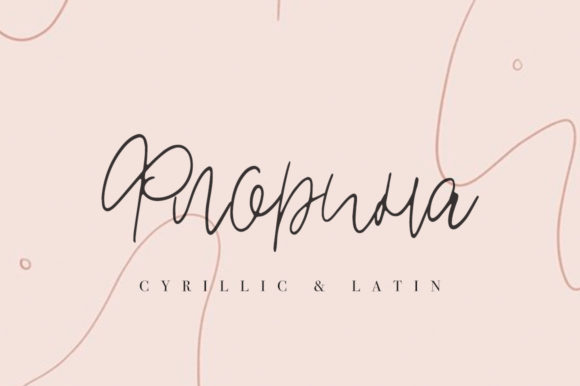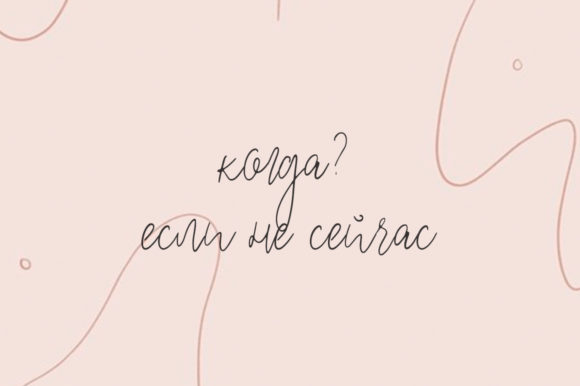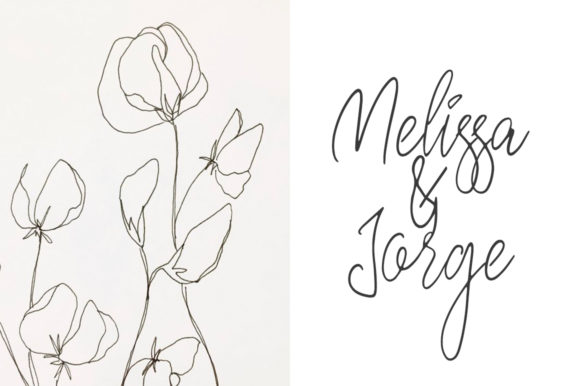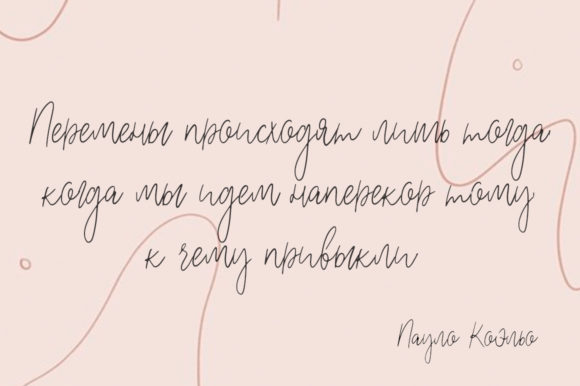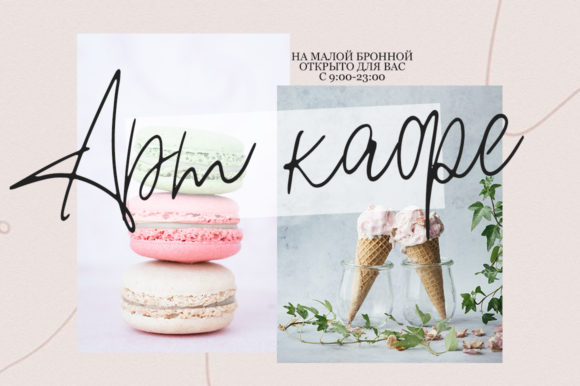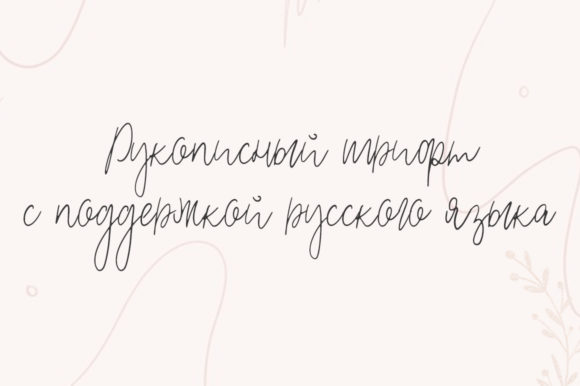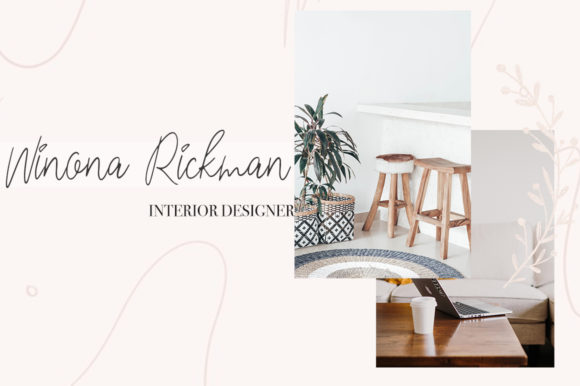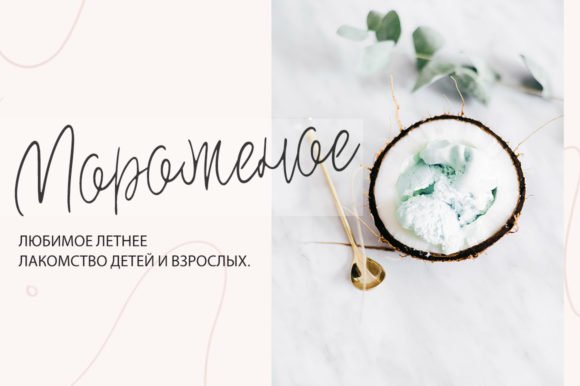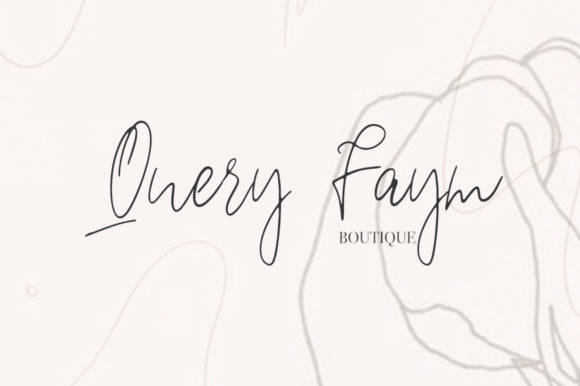
Florina Font
About Florina Font
Florina is a versatile and romantic handwritten font with a unique feel. This font fully supports Cyrillic & Latin characters.